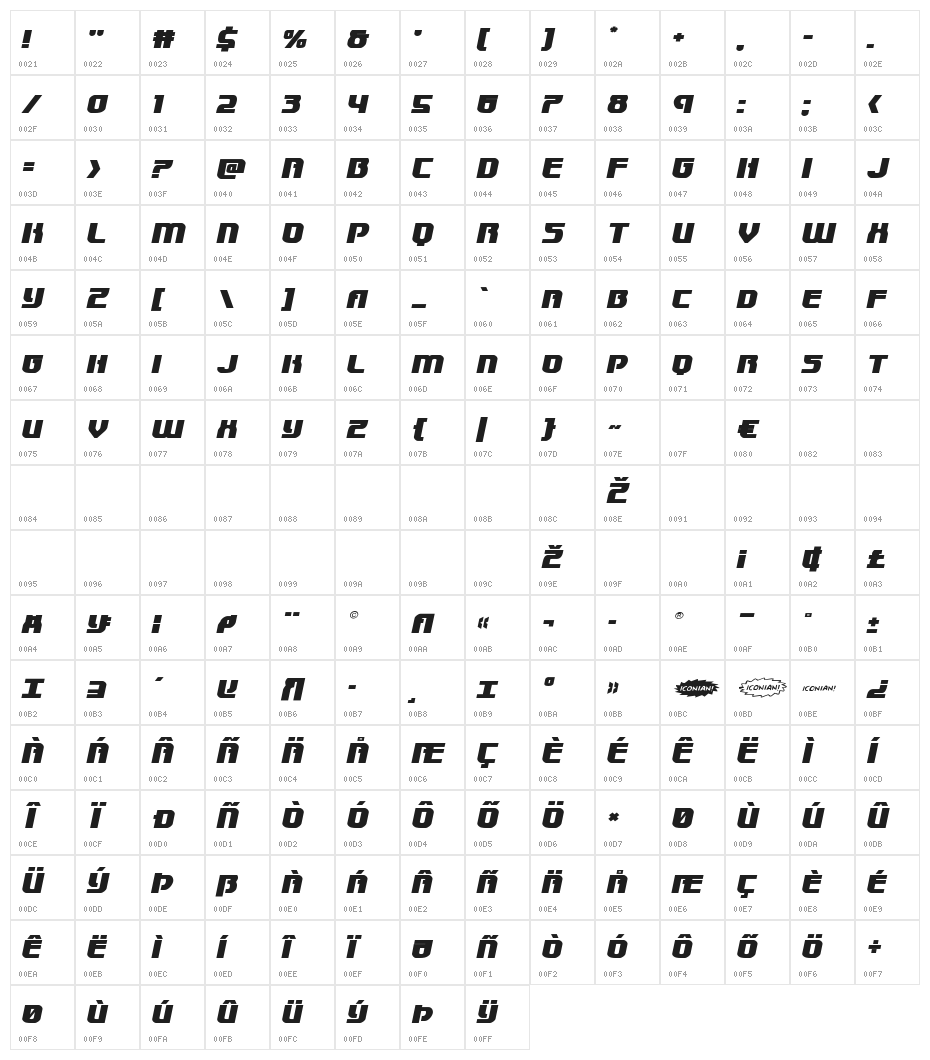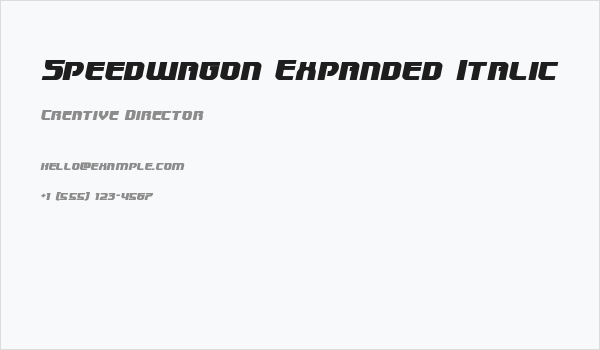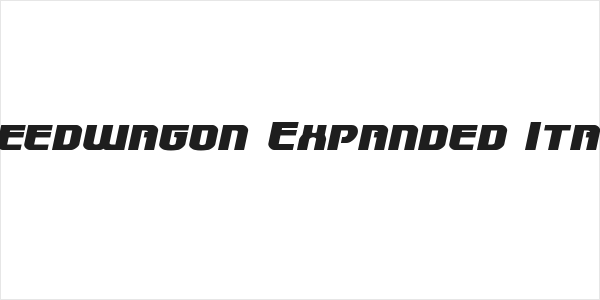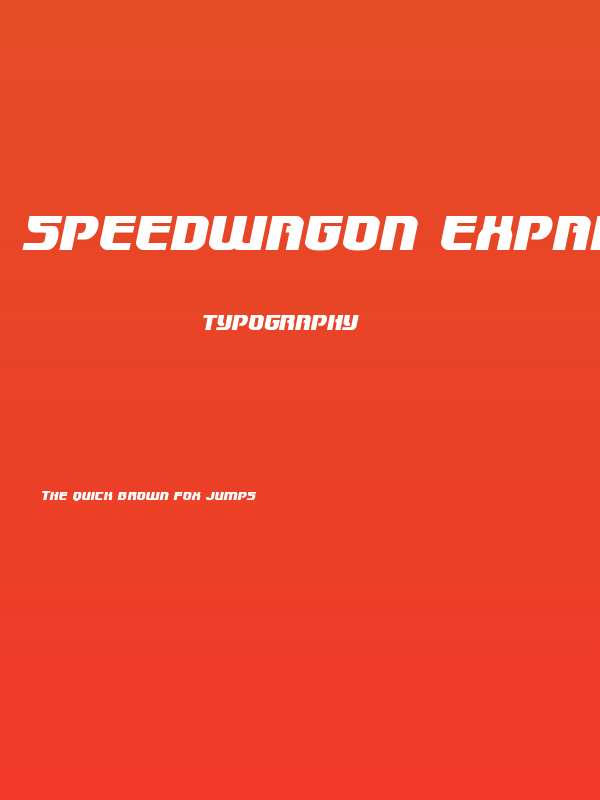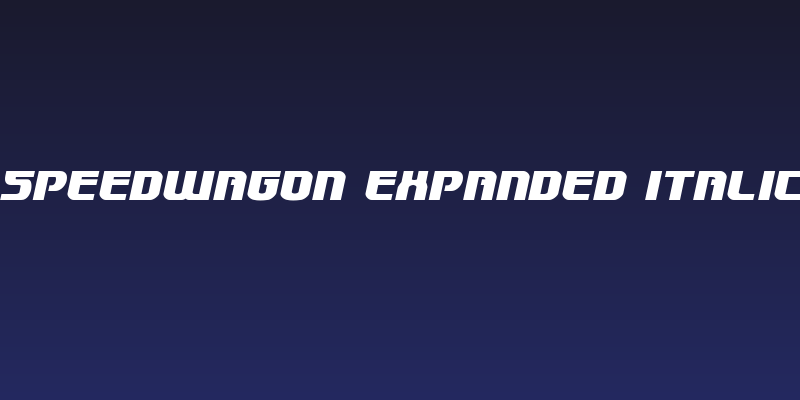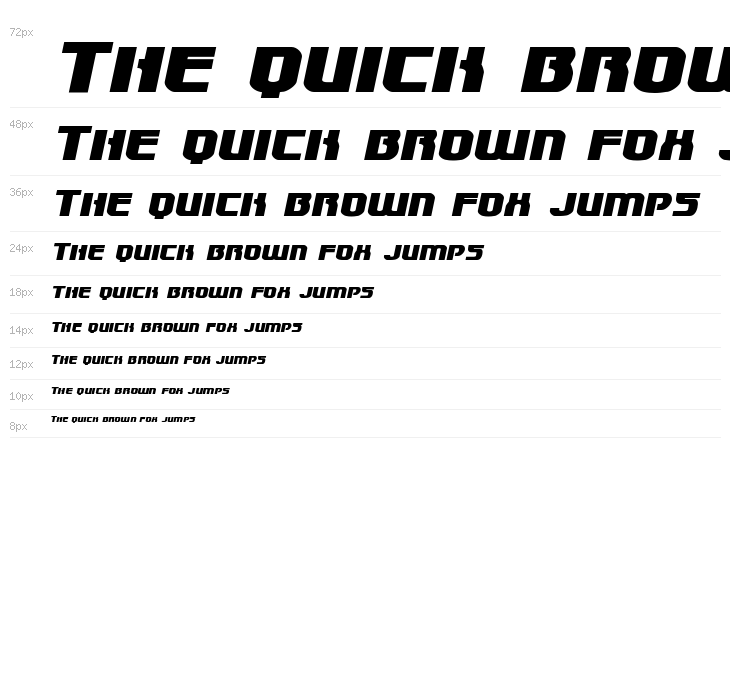
Speedwagon Expanded Italic Font
Speedwagon Expanded Italic Description
This font features a bold and dynamic design with an italic slant, giving it a sense of motion and energy. The characters are expanded, providing a wide and impactful appearance. The strokes are thick and consistent, contributing to a strong visual presence. The angular cuts and geometric shapes add a modern and edgy feel, making it suitable for attention-grabbing designs. The uppercase and lowercase letters maintain a uniform style, while the numbers and special characters complement the overall aesthetic.
| Proposed Projects | Ideal for sports branding, dynamic posters, video game titles, and any project requiring a bold and energetic typeface. |